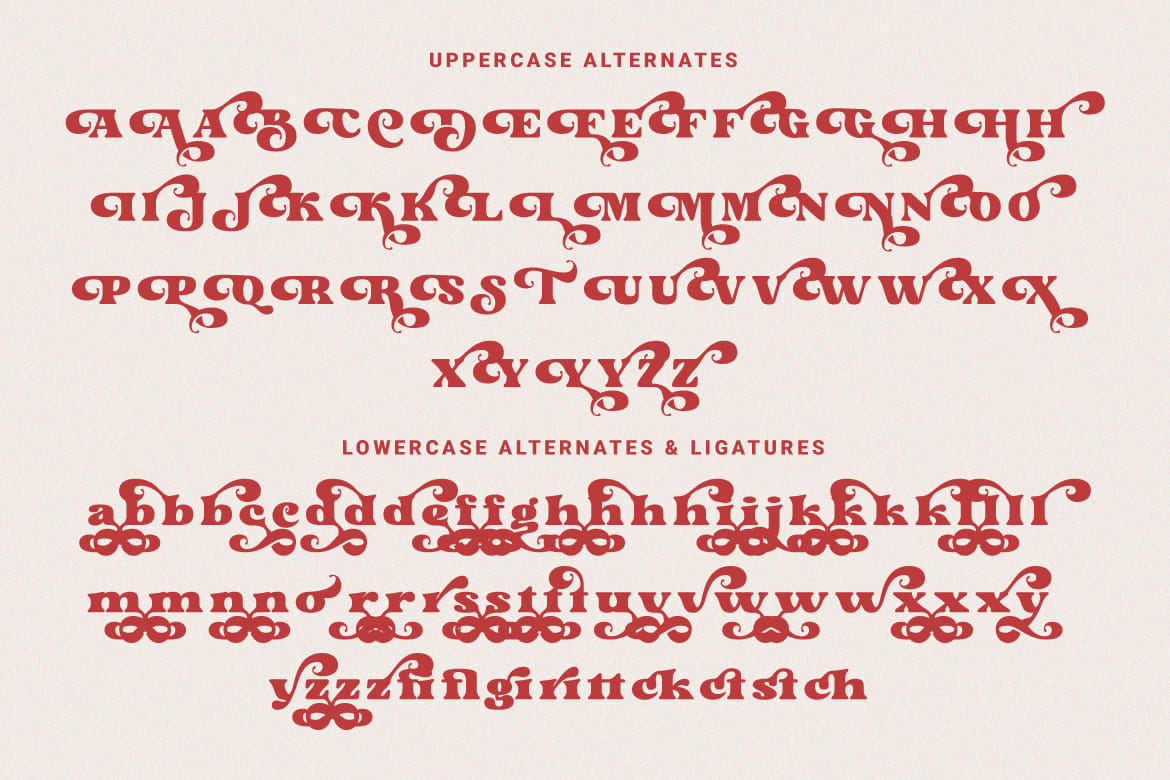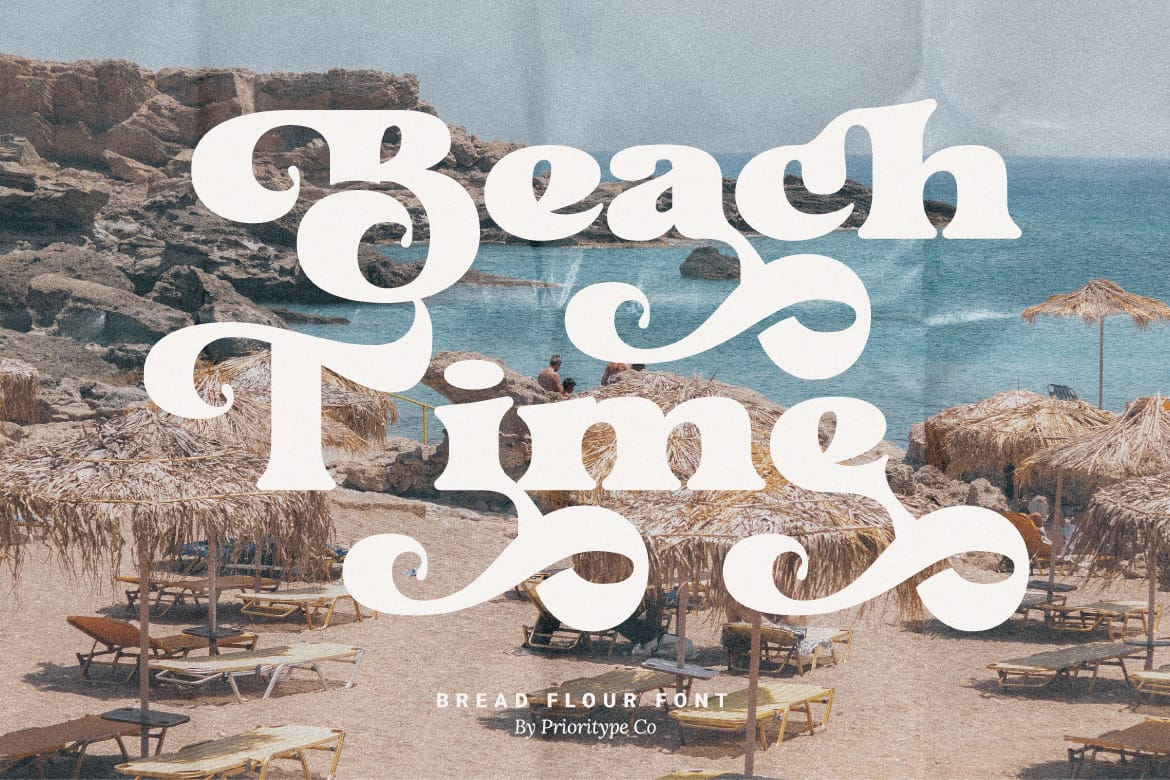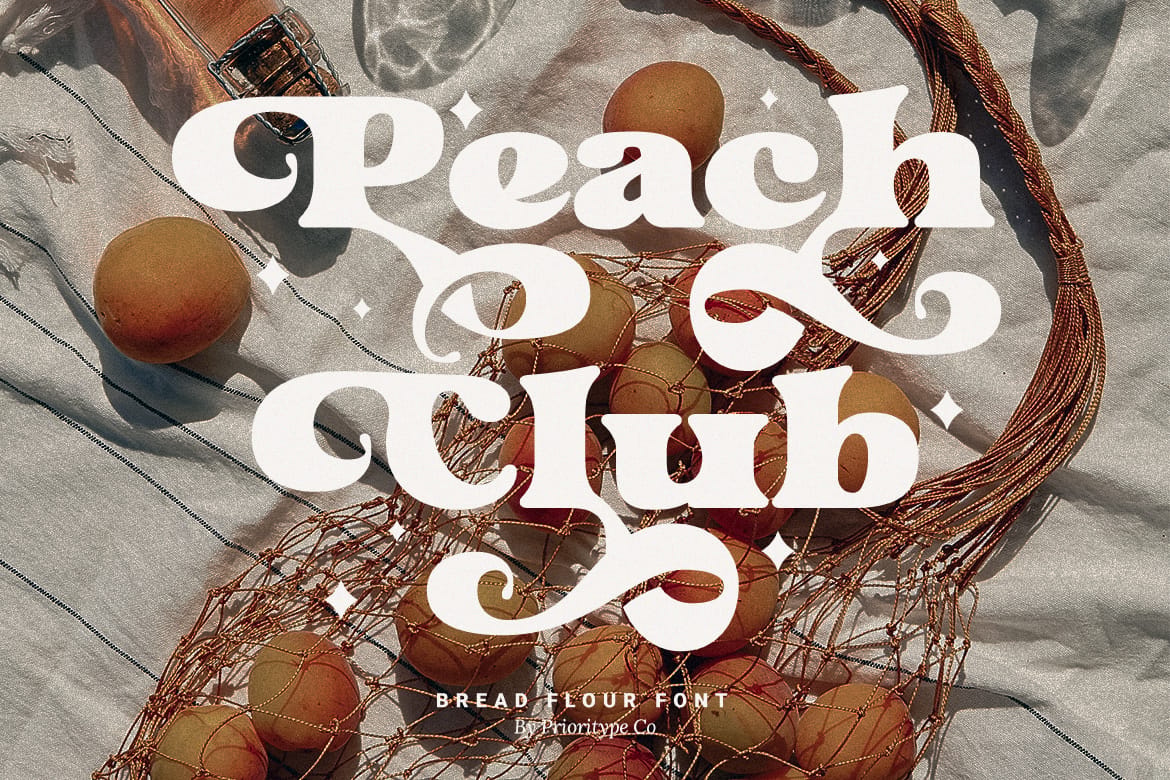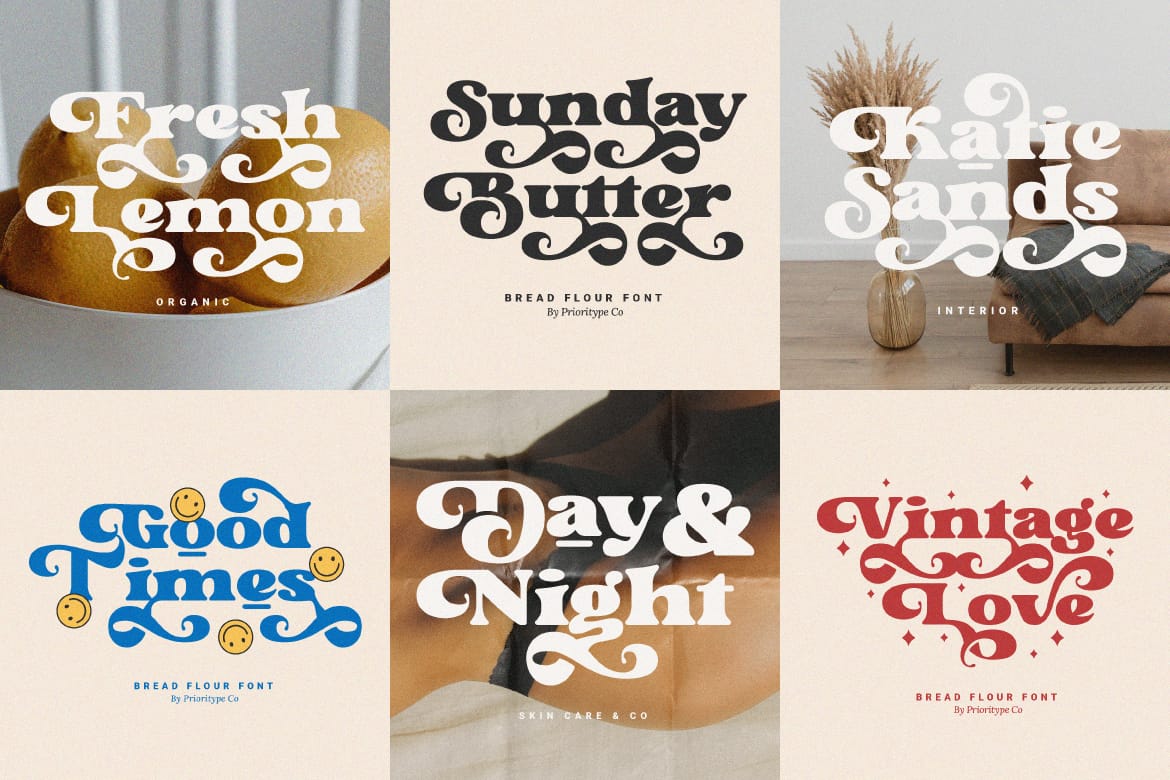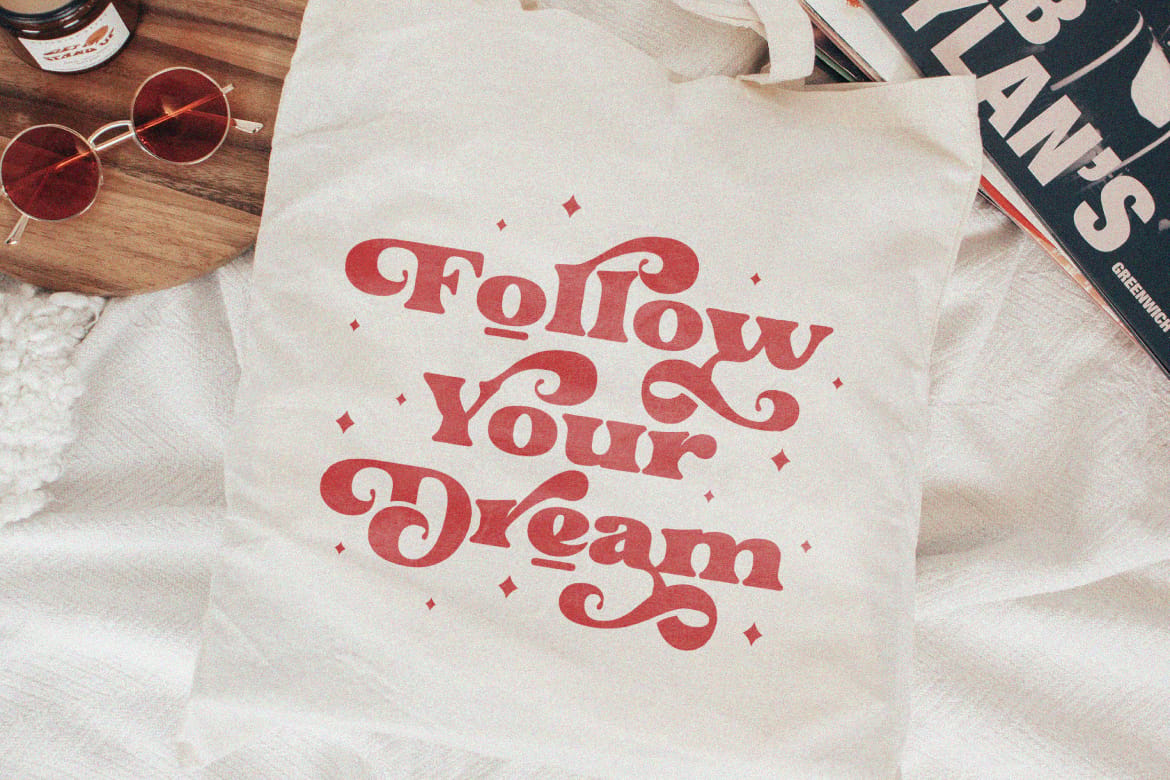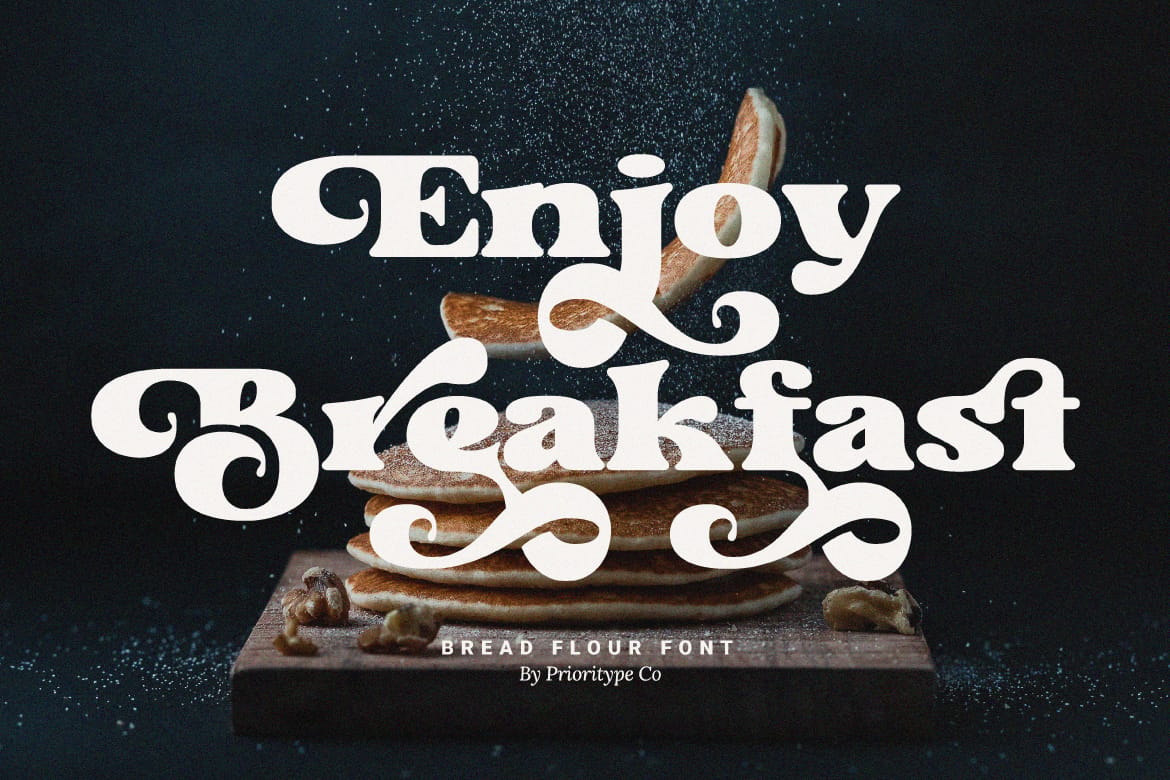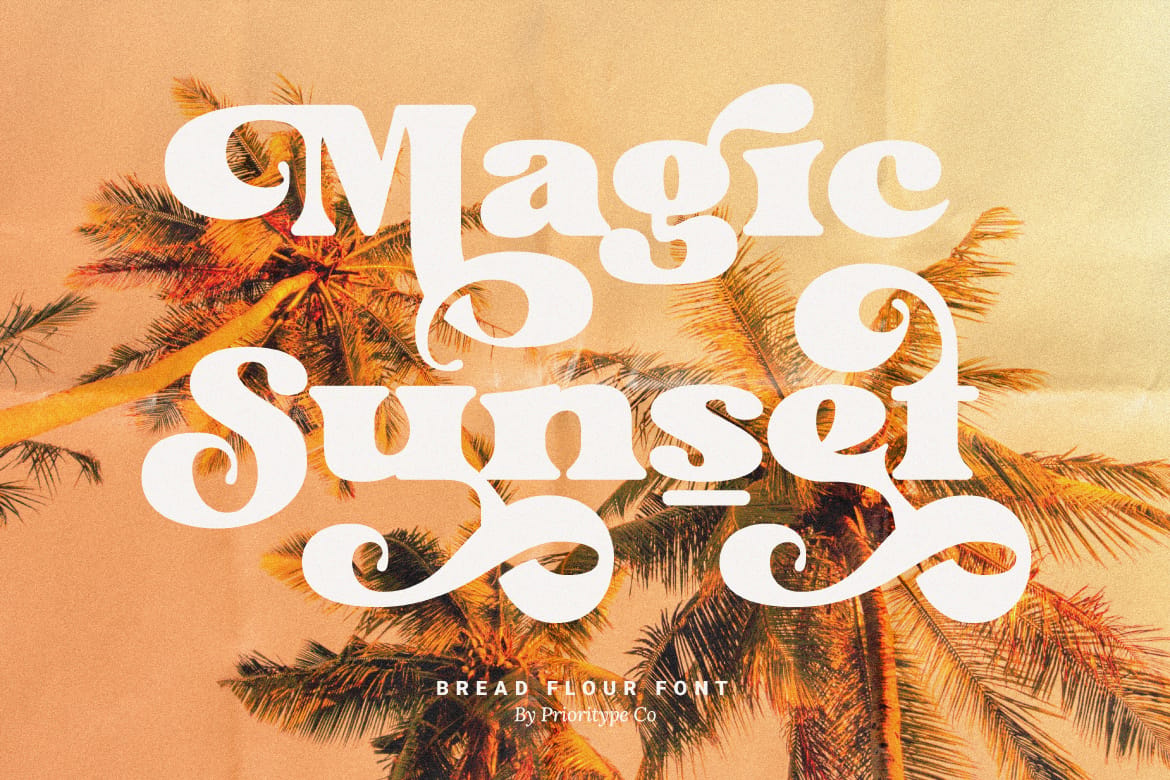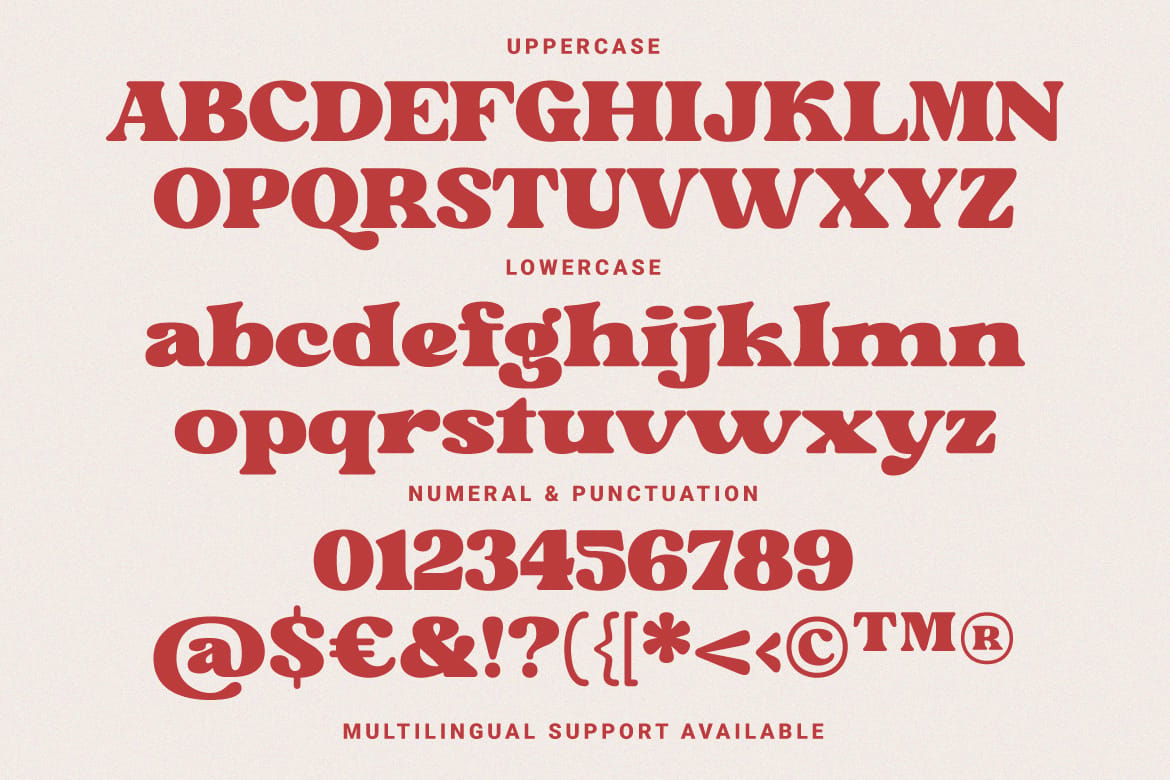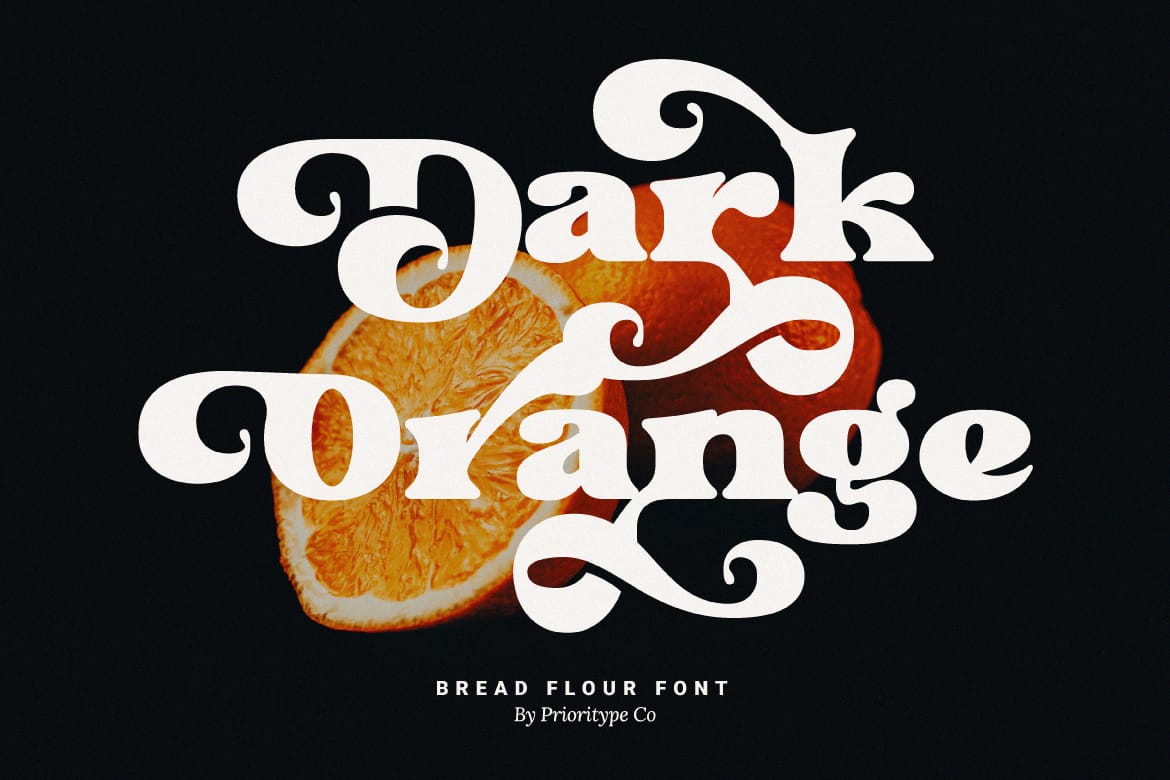
Bread Flour - Bold Retro Serif Font.
A fat serif font with a lingering retro feel. Equipped with stunning character alternatives to make your design more striking. Great for headlines, branding, logos, merchandise and so on. Type and type now to pour your creative ideas!
Features: Uppercase, Lowercase, Numeral, Punctuation, Multilingual, Alternates, Ligatures & PUA Encoded.
- Alternates, ligatures, PUA encoded
- Fat retro feel with multilingual